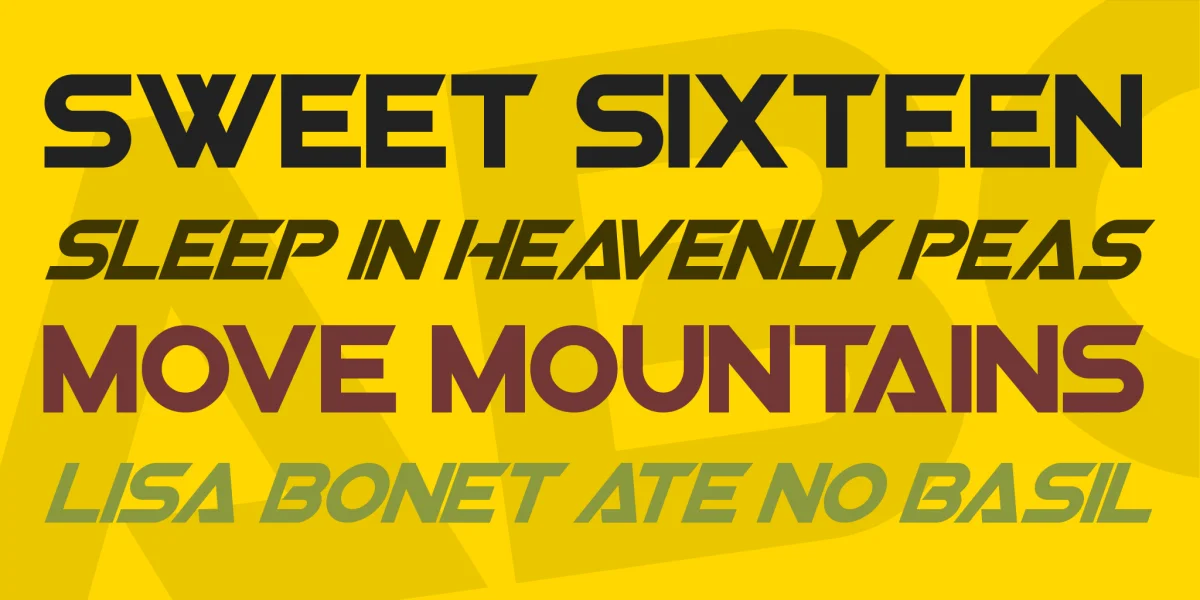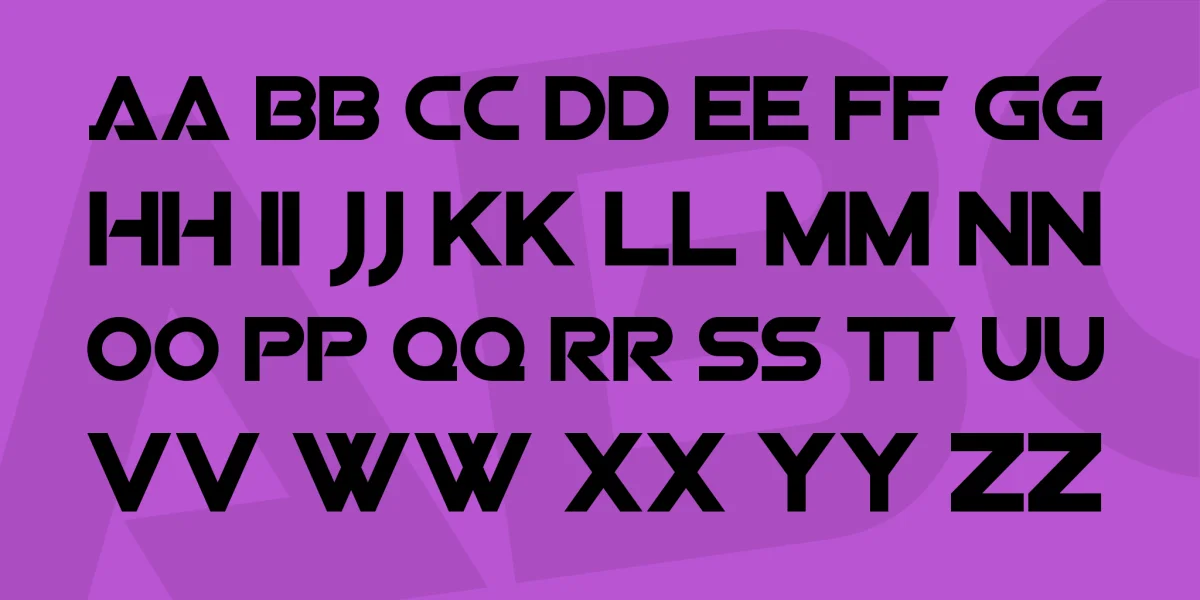
A ragtag typeface, SF Viper Squadron is one of our oldest font packages. This heavily battered and neglected design only has a limited character set remaining and is probably well overdue for a redesign...